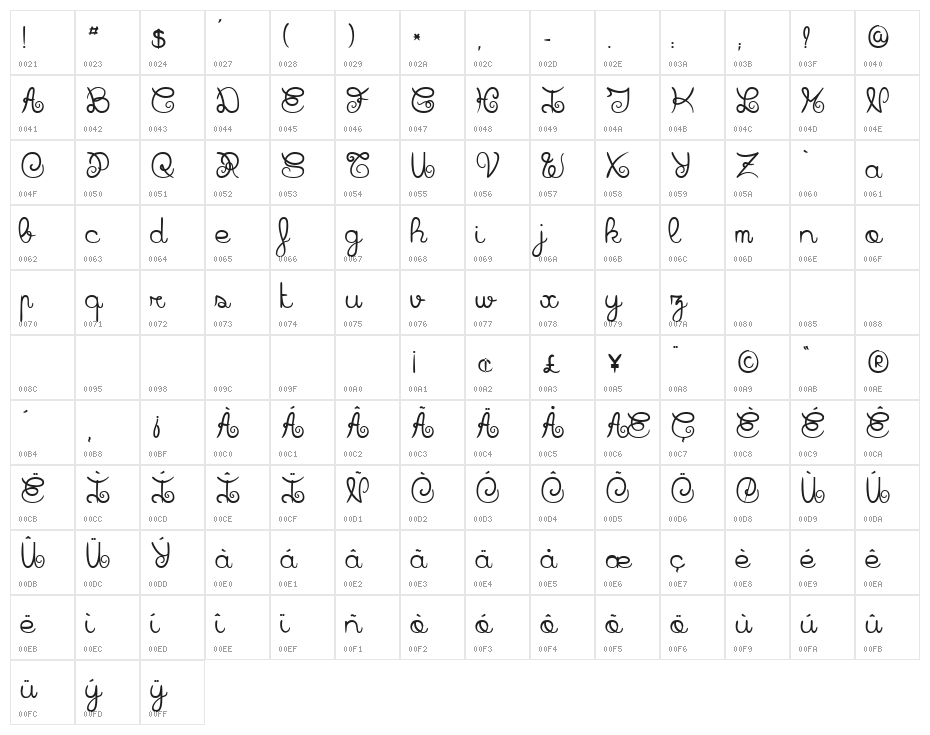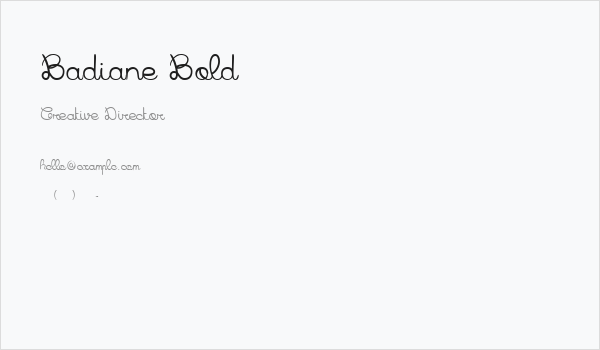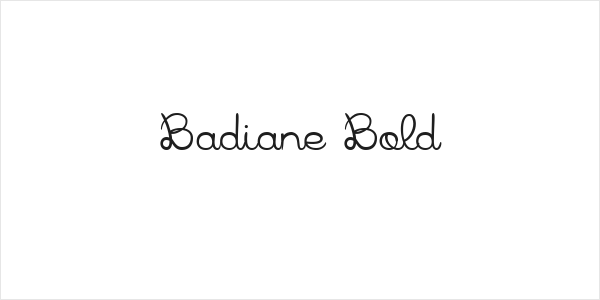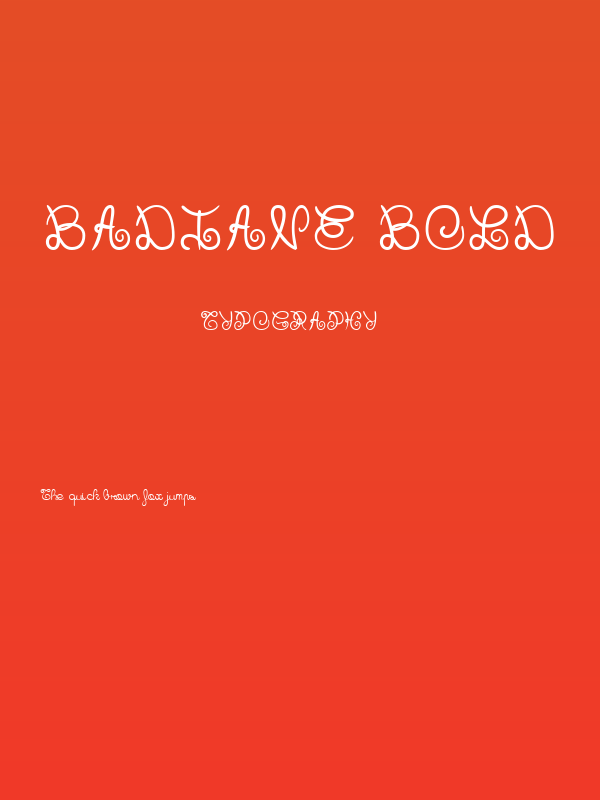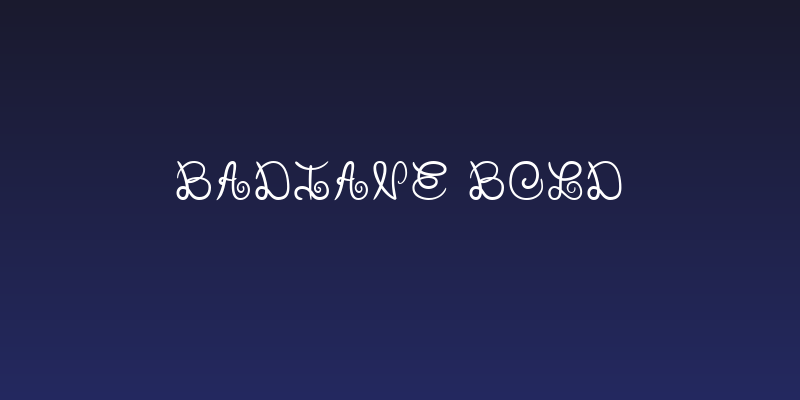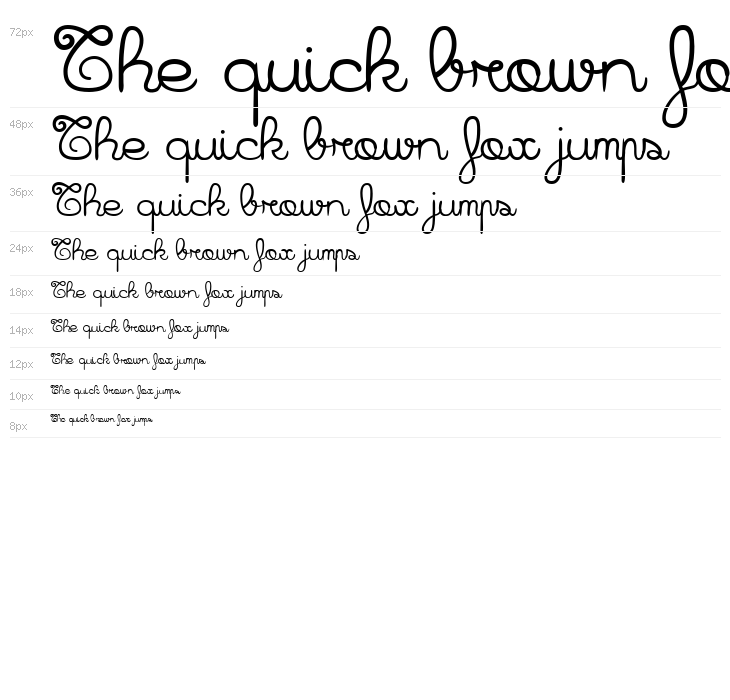
Badiane Bold Font
Badiane Bold Description
This font features an elegant and whimsical design with intricate curls and loops, giving it a playful yet sophisticated appearance. The uppercase letters are adorned with decorative swirls, while the lowercase letters maintain a more fluid and connected script style. The characters are bold and have a consistent thickness, contributing to a strong visual presence. The special characters, such as punctuation marks and symbols, are designed to match the overall aesthetic, with unique embellishments that enhance the font's charm. This font is ideal for projects that require a touch of elegance and creativity.
| Proposed Projects | Ideal for wedding invitations, greeting cards, branding, and decorative posters. |